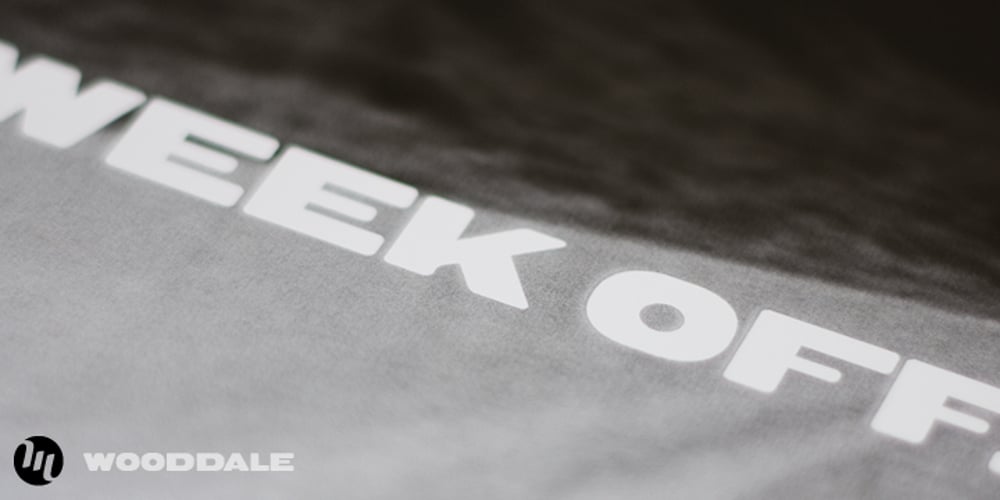
Wooddale Font Family was designed by Matthew Aaron Desmond and published by MADType. Wooddale contains 2 styles and family package options. If you require an authentic wood type era typeface, Wooddale is your match. This face was revived with care from samples in antique type specimen books.